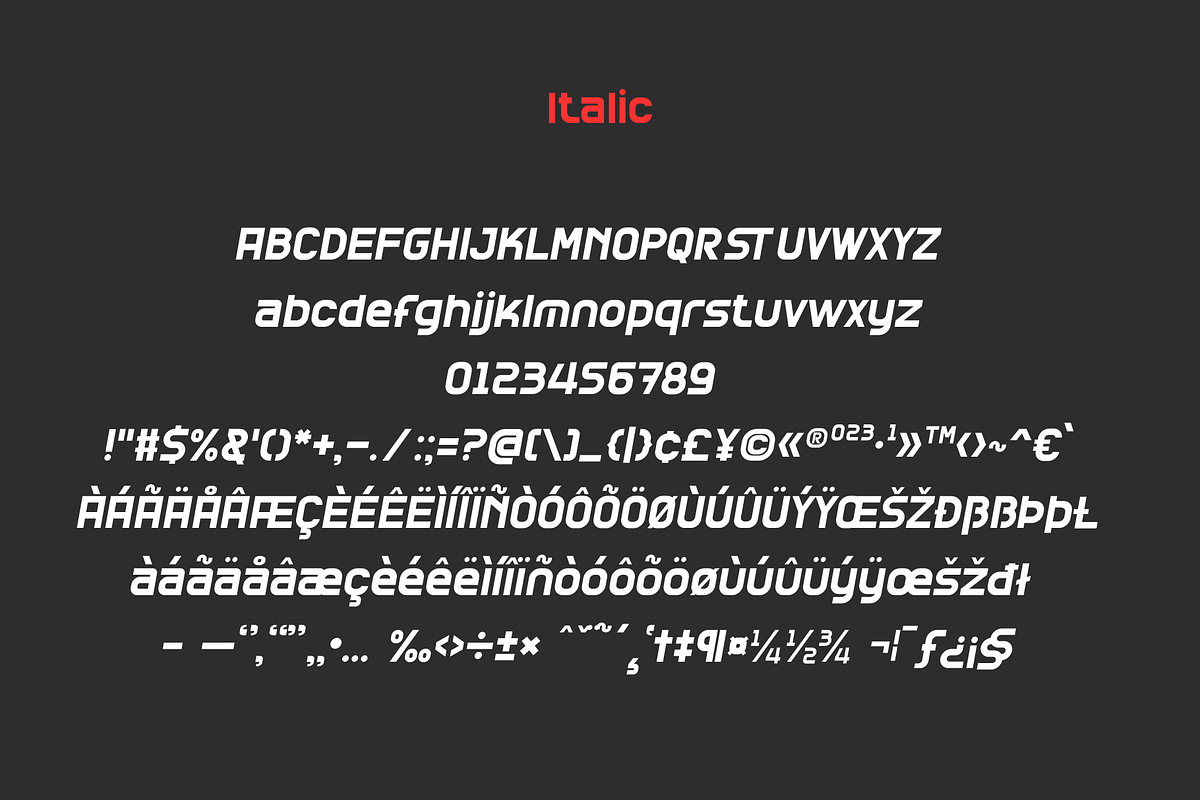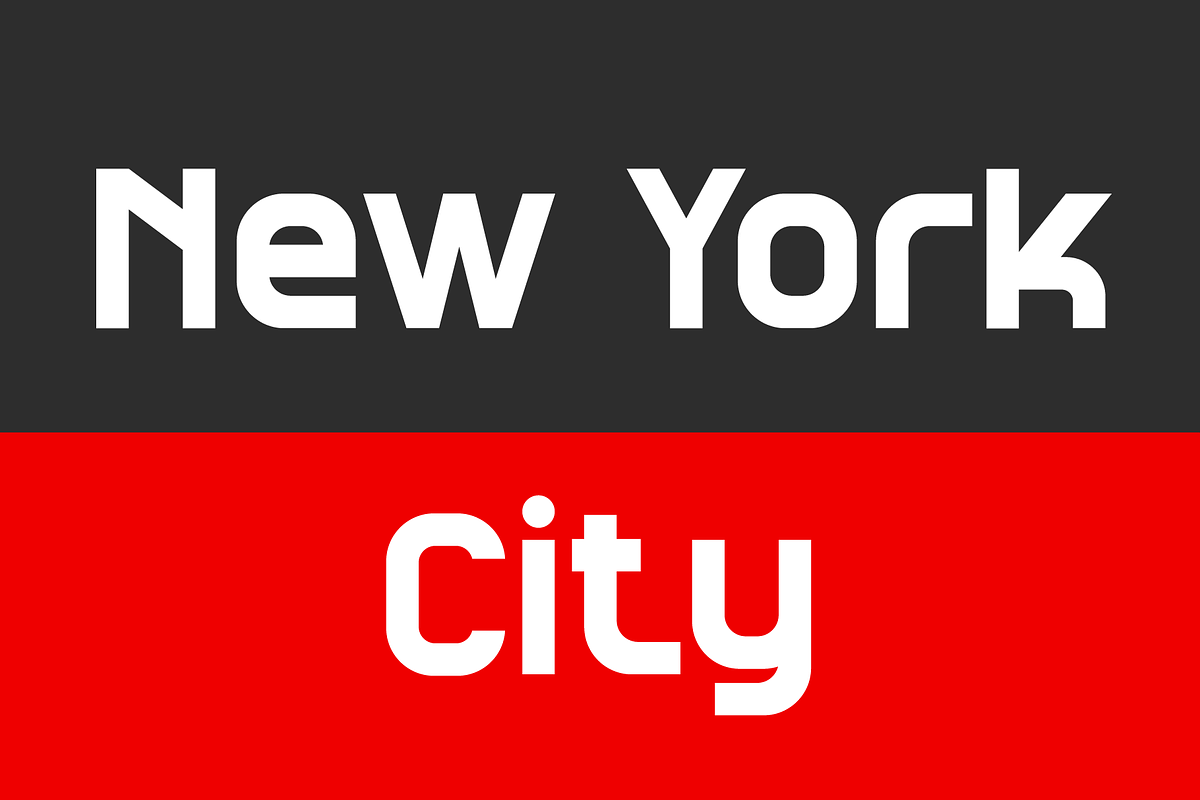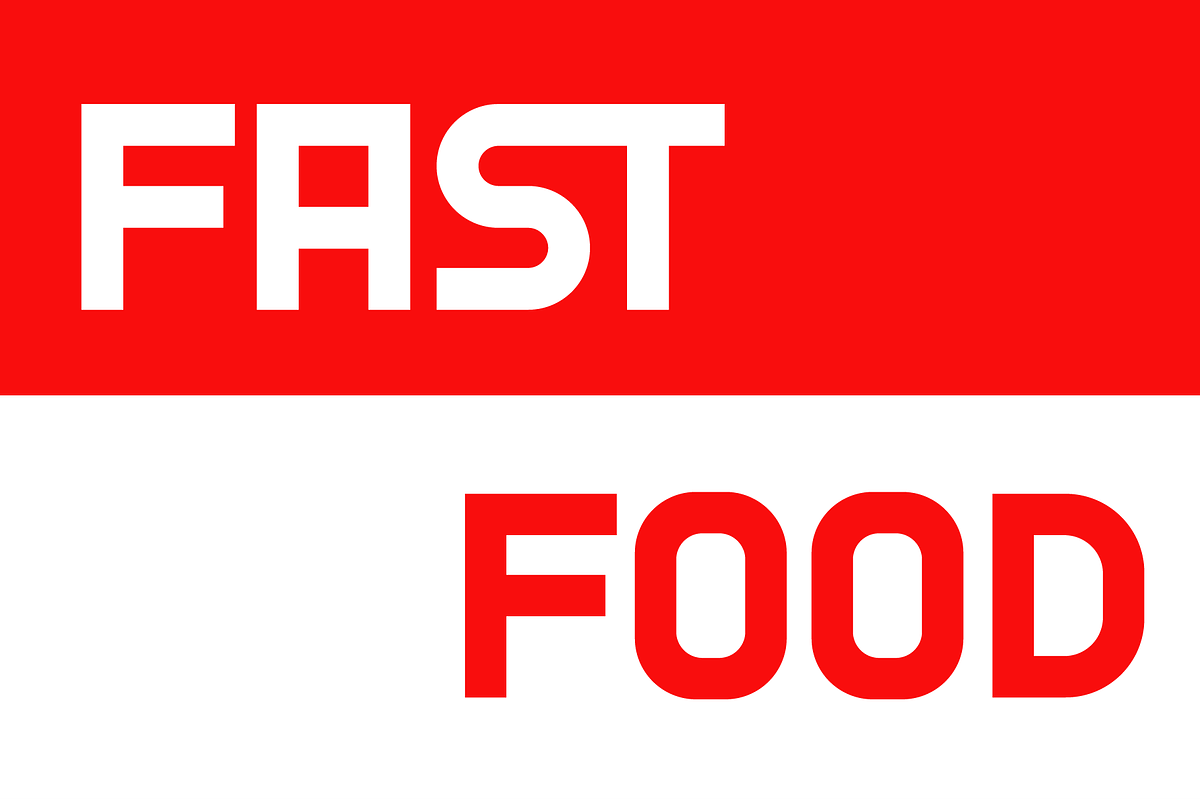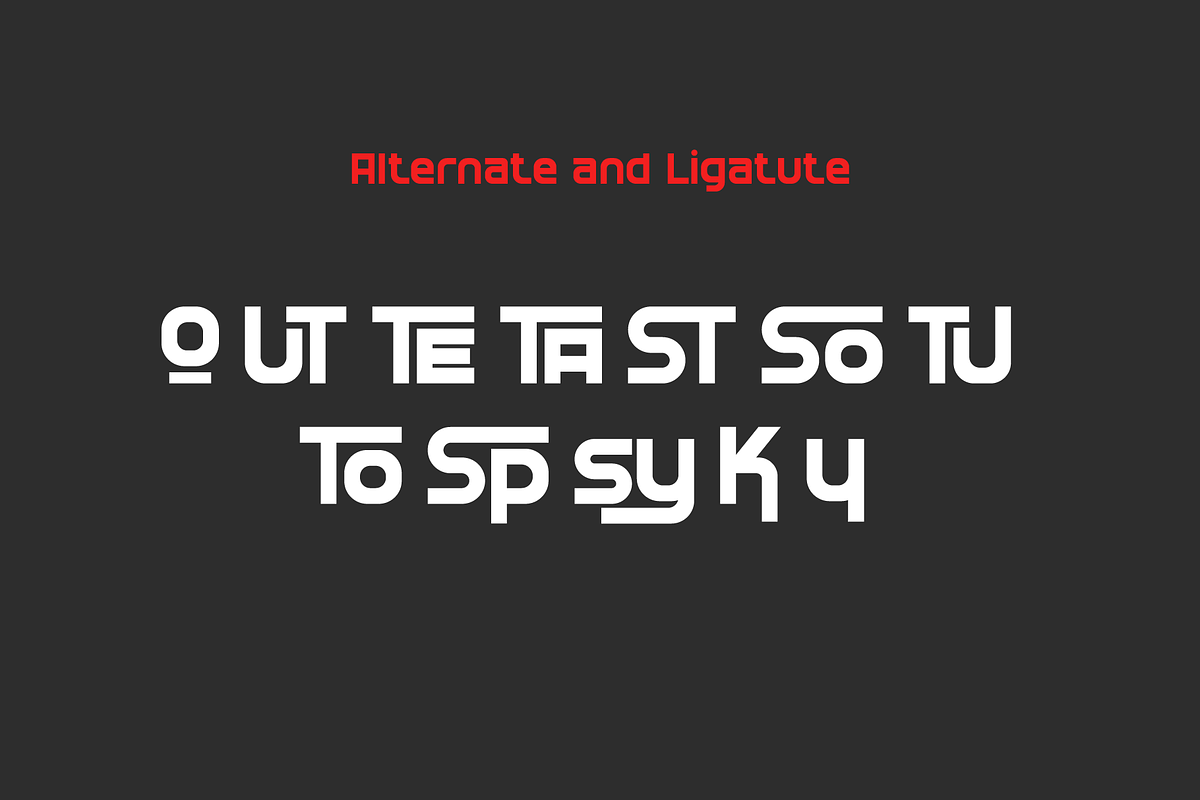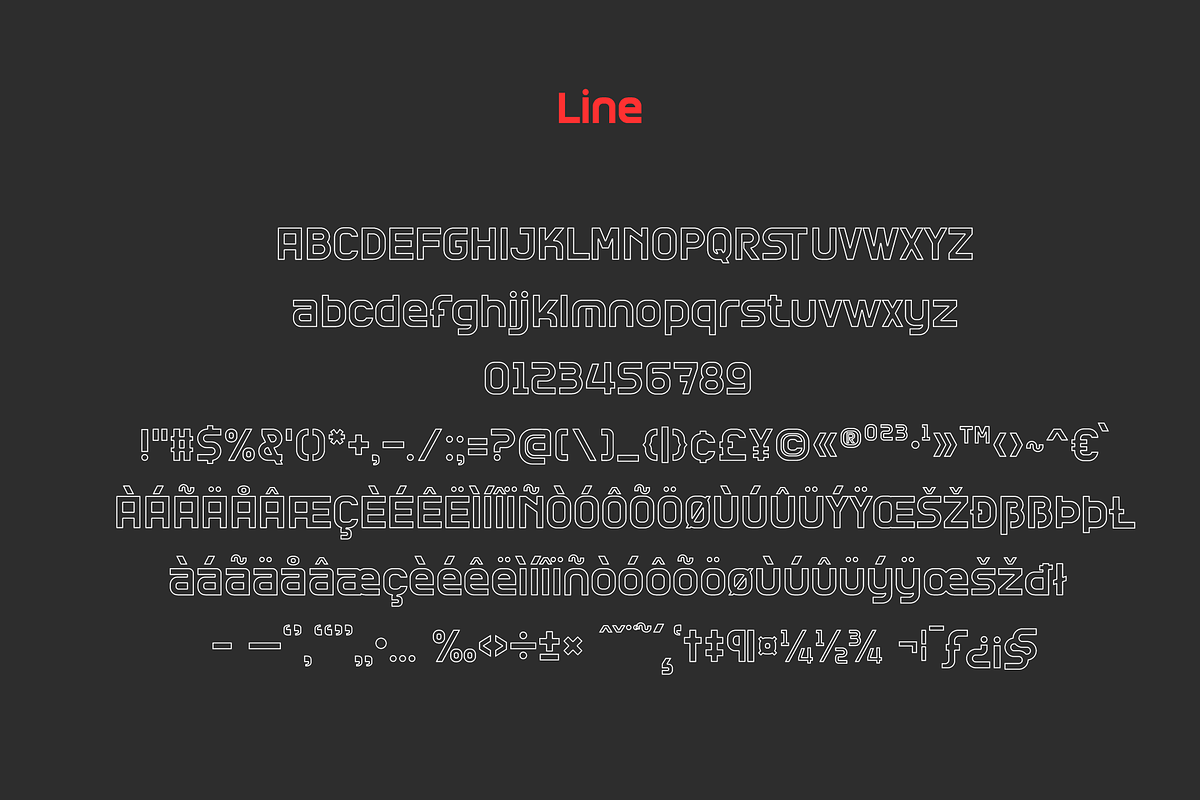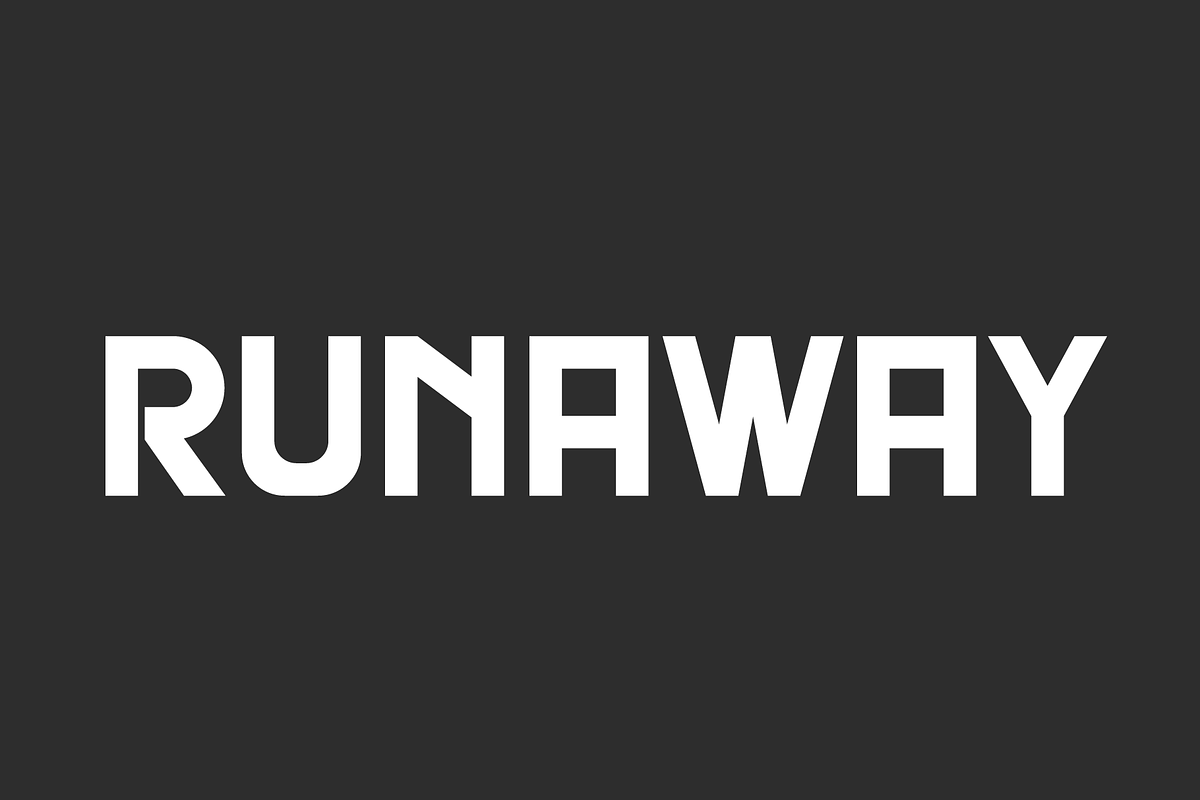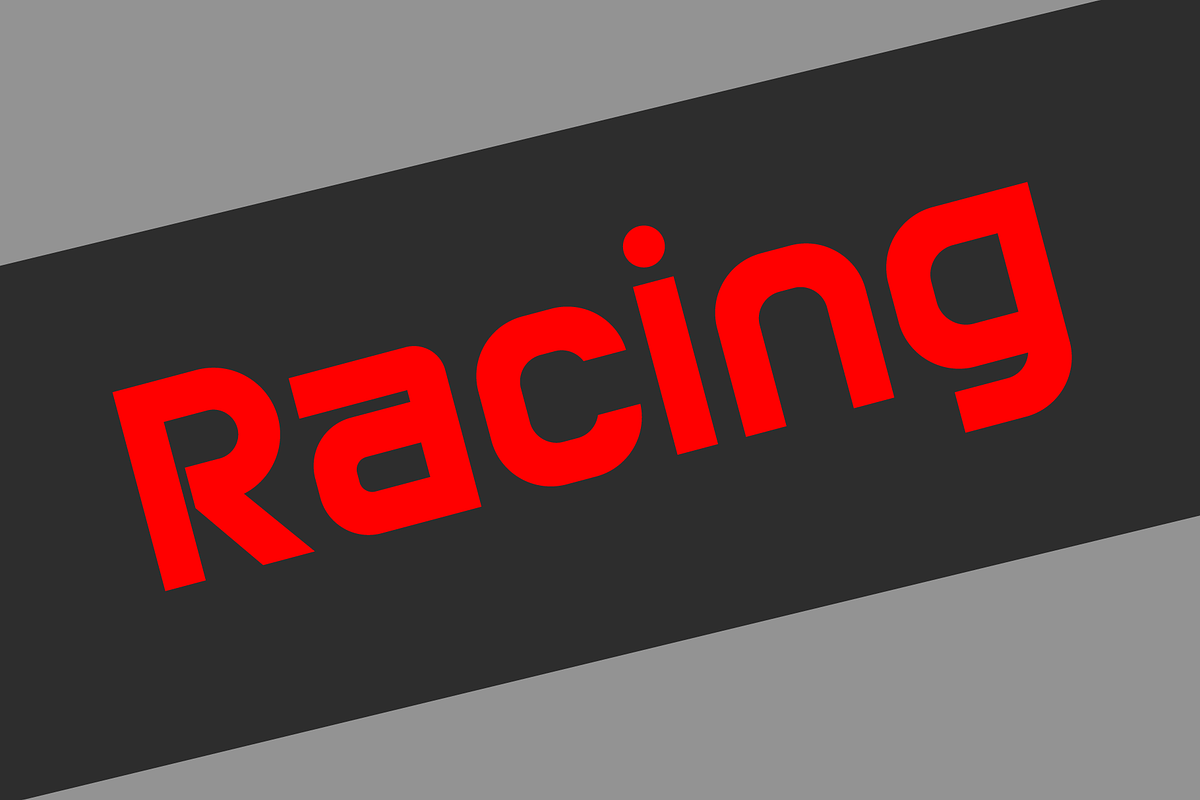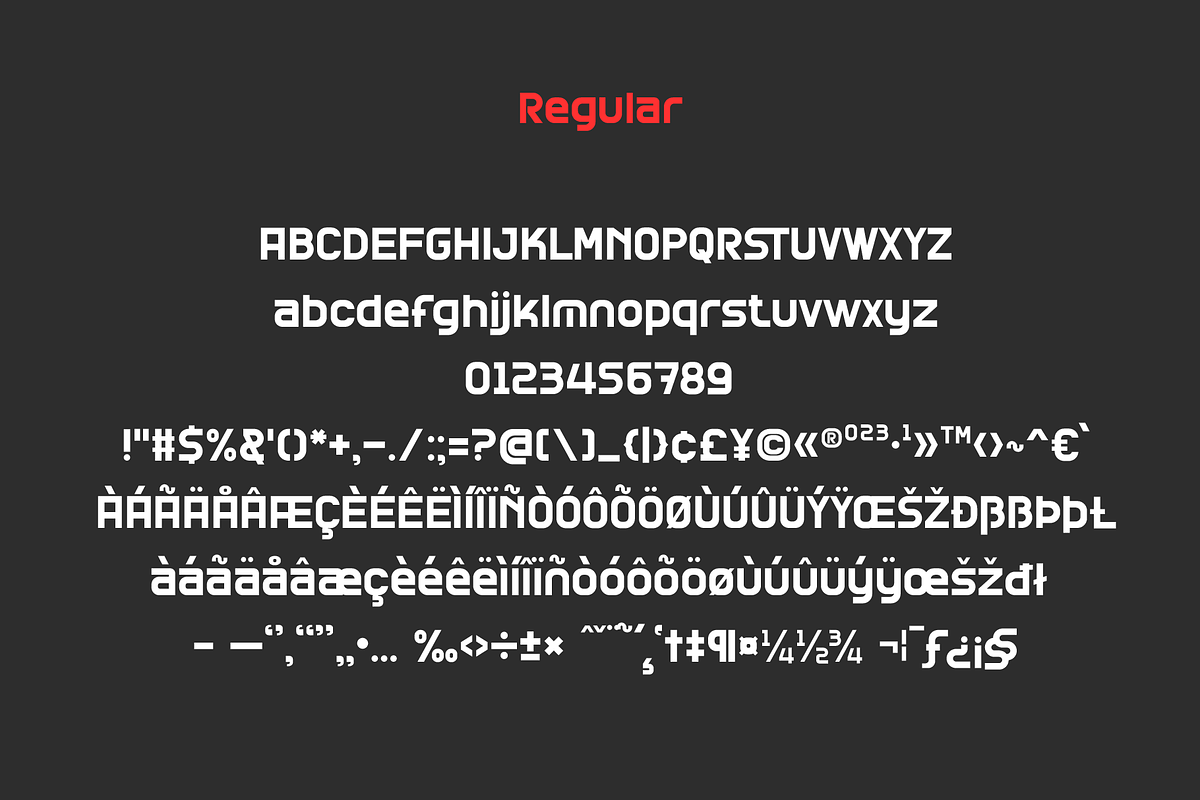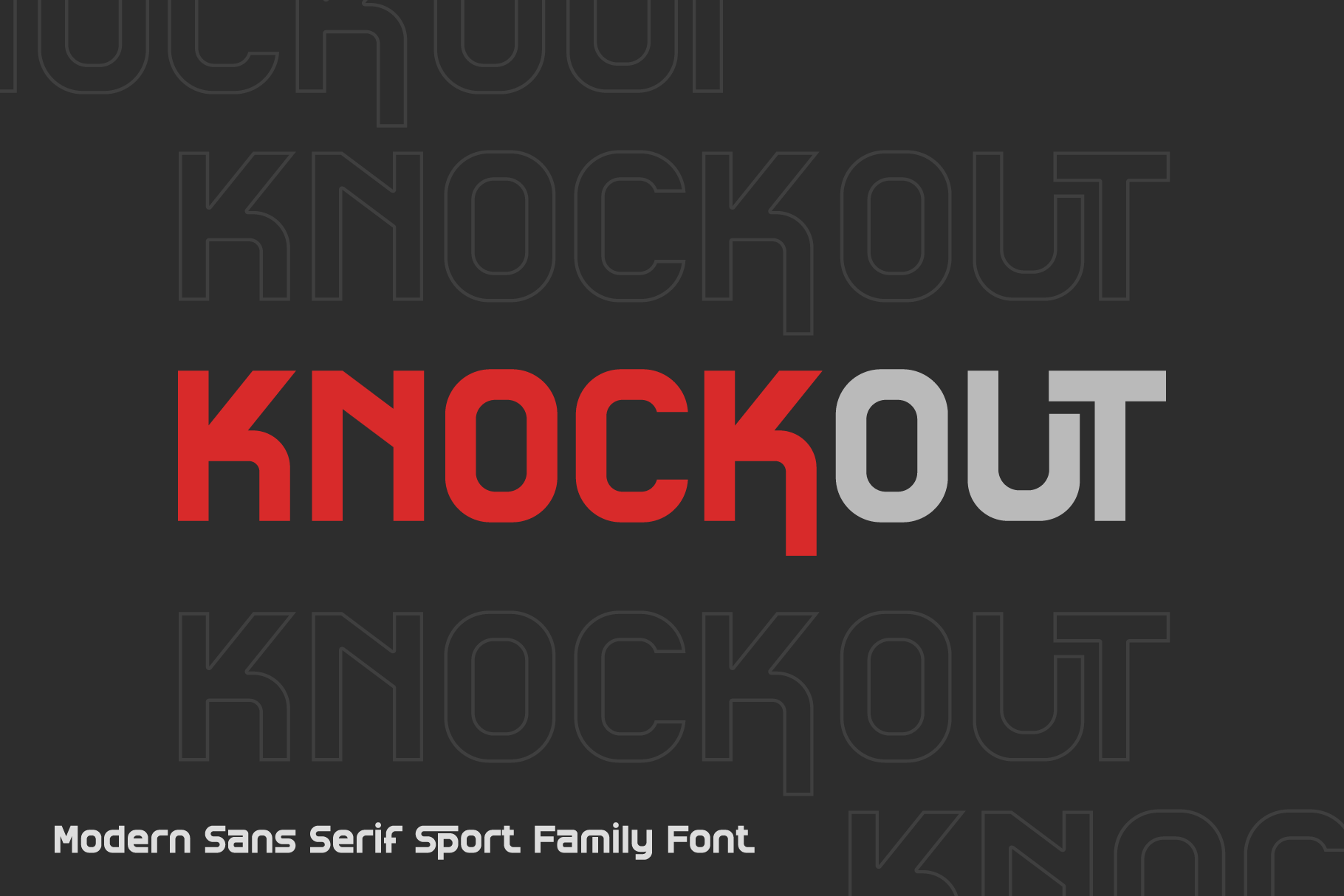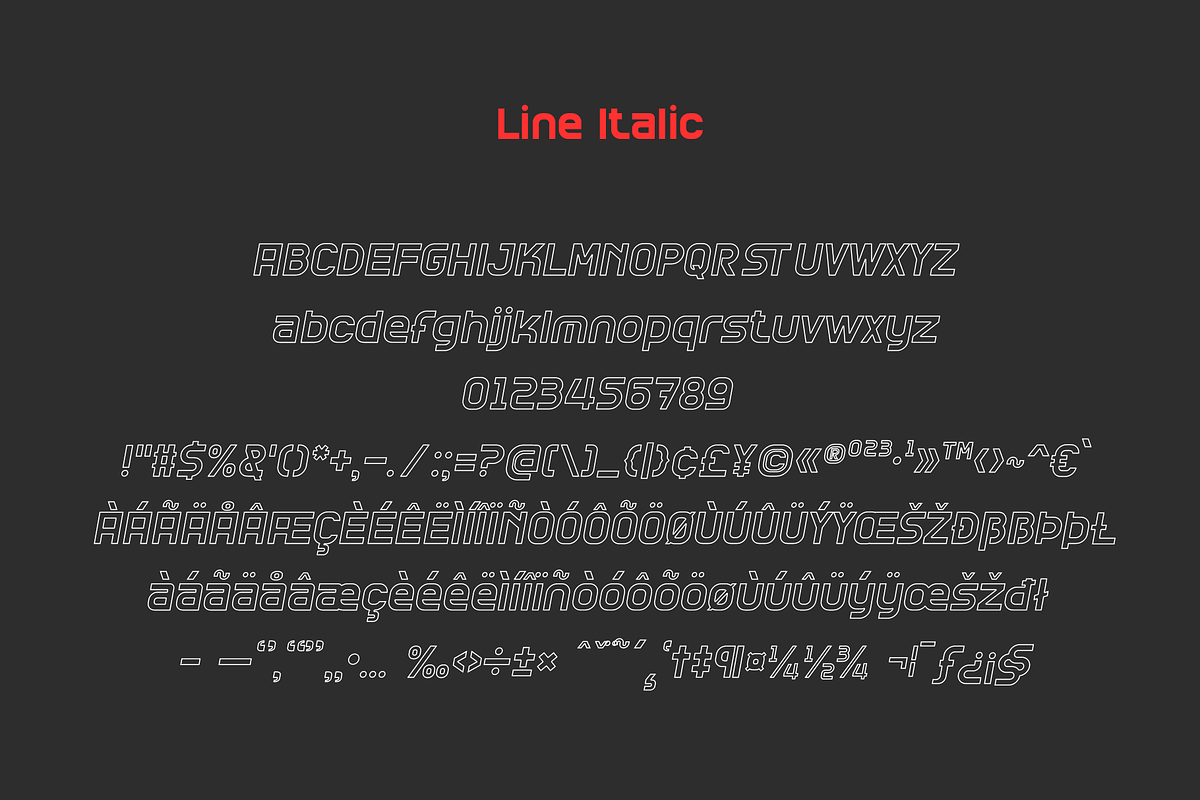
Knockout is a modern sport font
Knockout is a bold and wide sport typeface inspired by classic Knockout signage, vintage stadium lettering, and professional team branding. It captures the powerful and confident spirit of sport through strong block shapes, solid curves, and an unmistakable athletic presence.
Designed for logos, posters, headlines, packaging, advertising, social media graphics, and sports-themed visual identities, Knockout delivers a clean and impactful look that works perfectly for modern design styles.